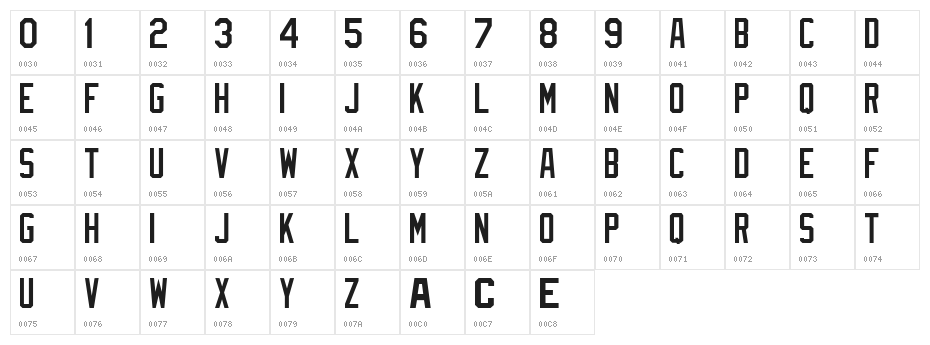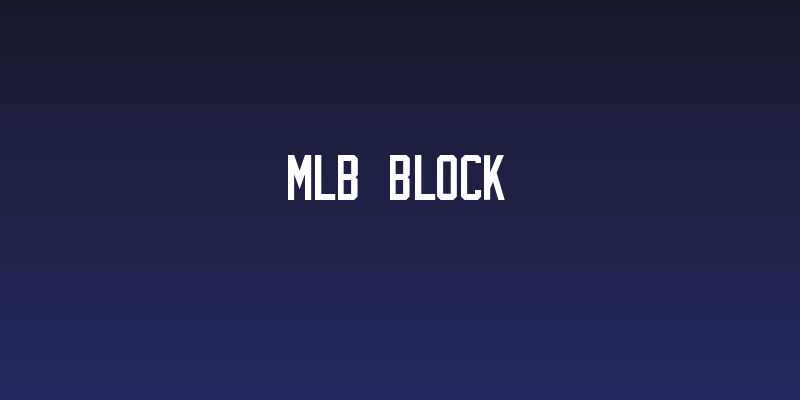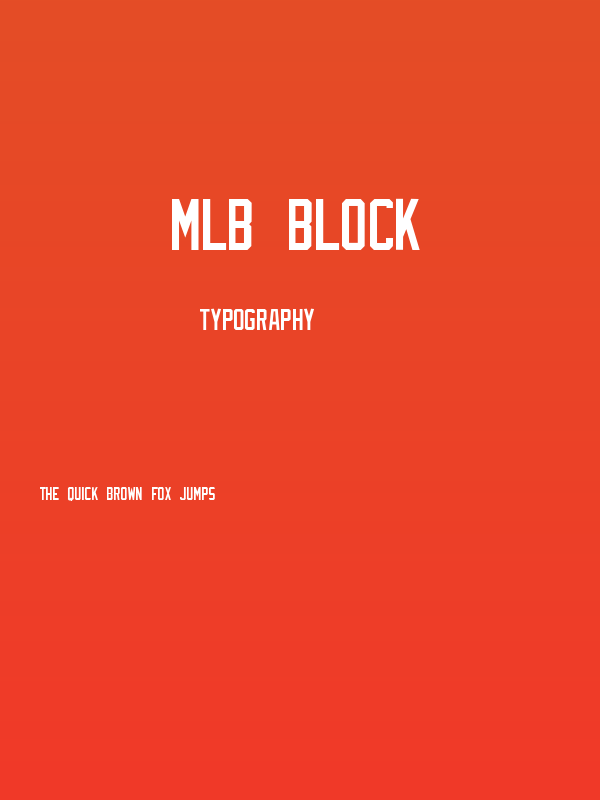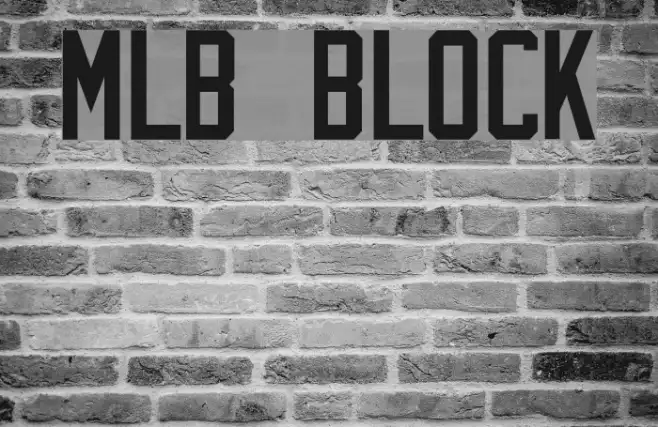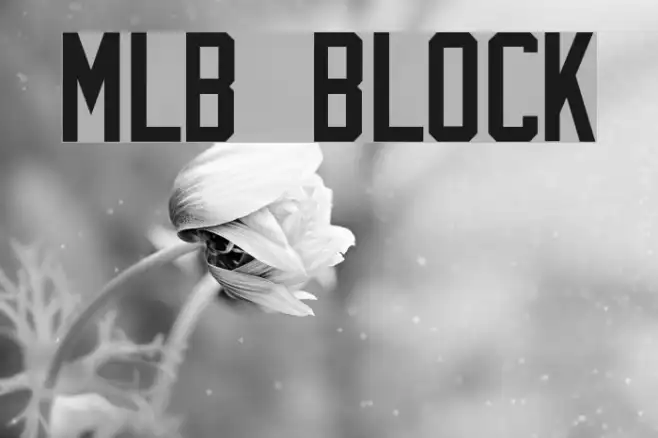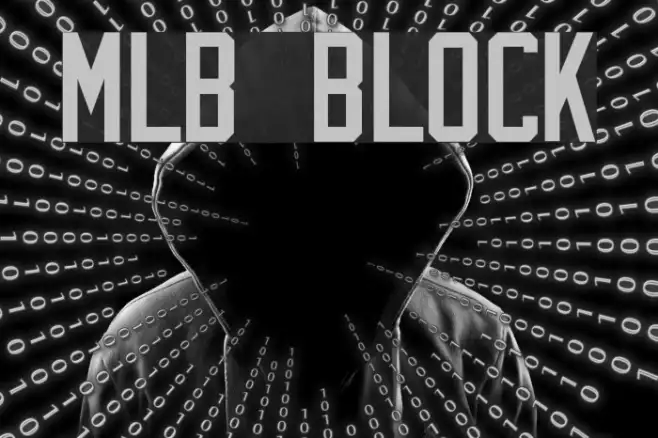
MLB Block Font
MLB Block Description
This font features a bold, geometric design with strong, angular lines and a blocky appearance. The uppercase letters are uniform in height and width, creating a cohesive and structured look. The numbers and special characters maintain the same boldness and angularity, ensuring consistency across all characters. The font's design is reminiscent of sports jerseys or team logos, emphasizing strength and impact. Its clean lines and lack of serifs give it a modern and assertive feel, making it ideal for attention-grabbing headlines or branding.